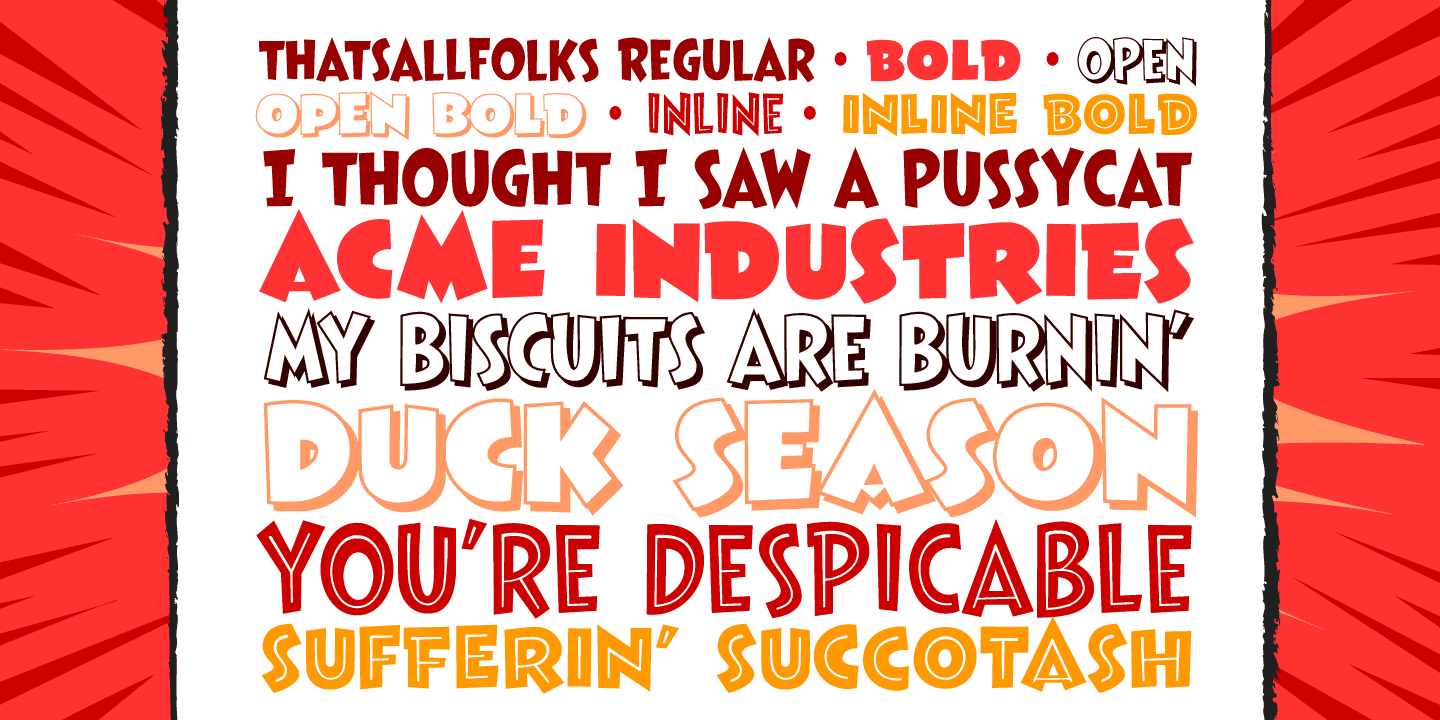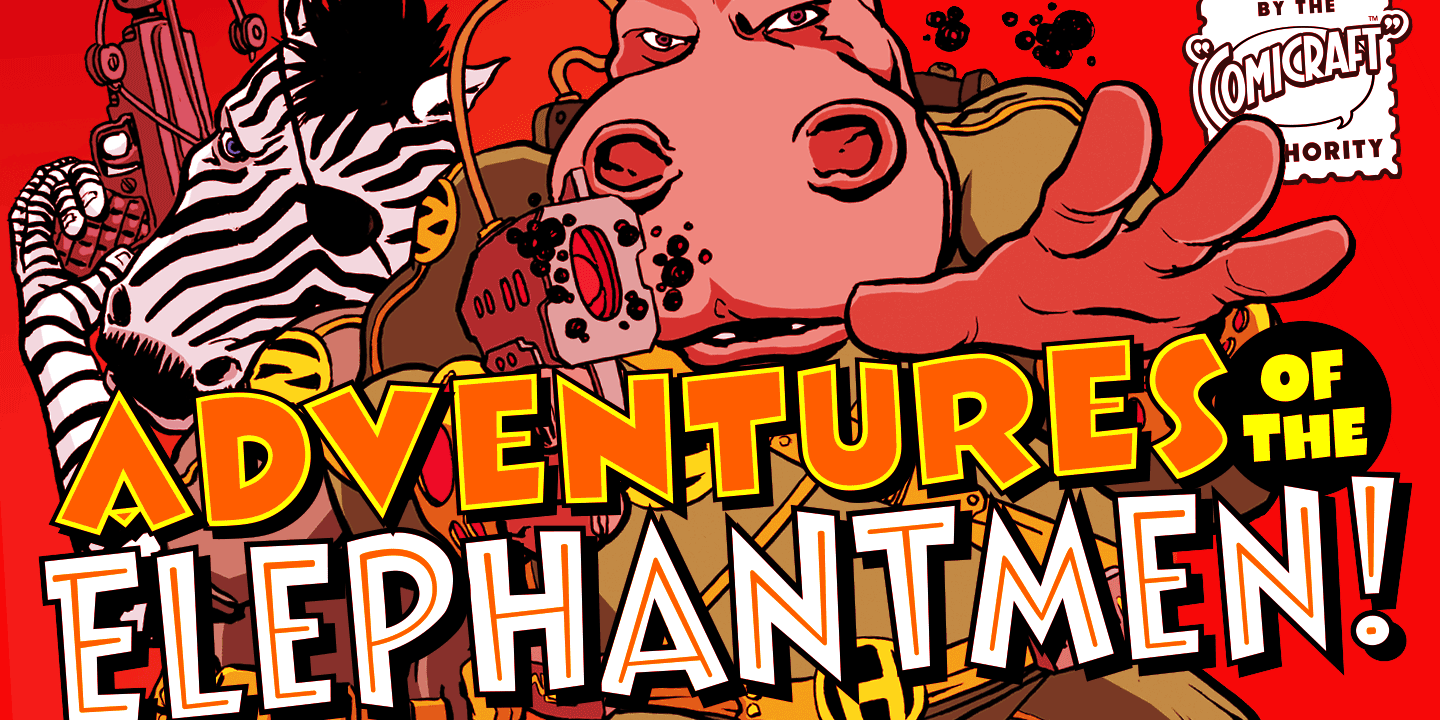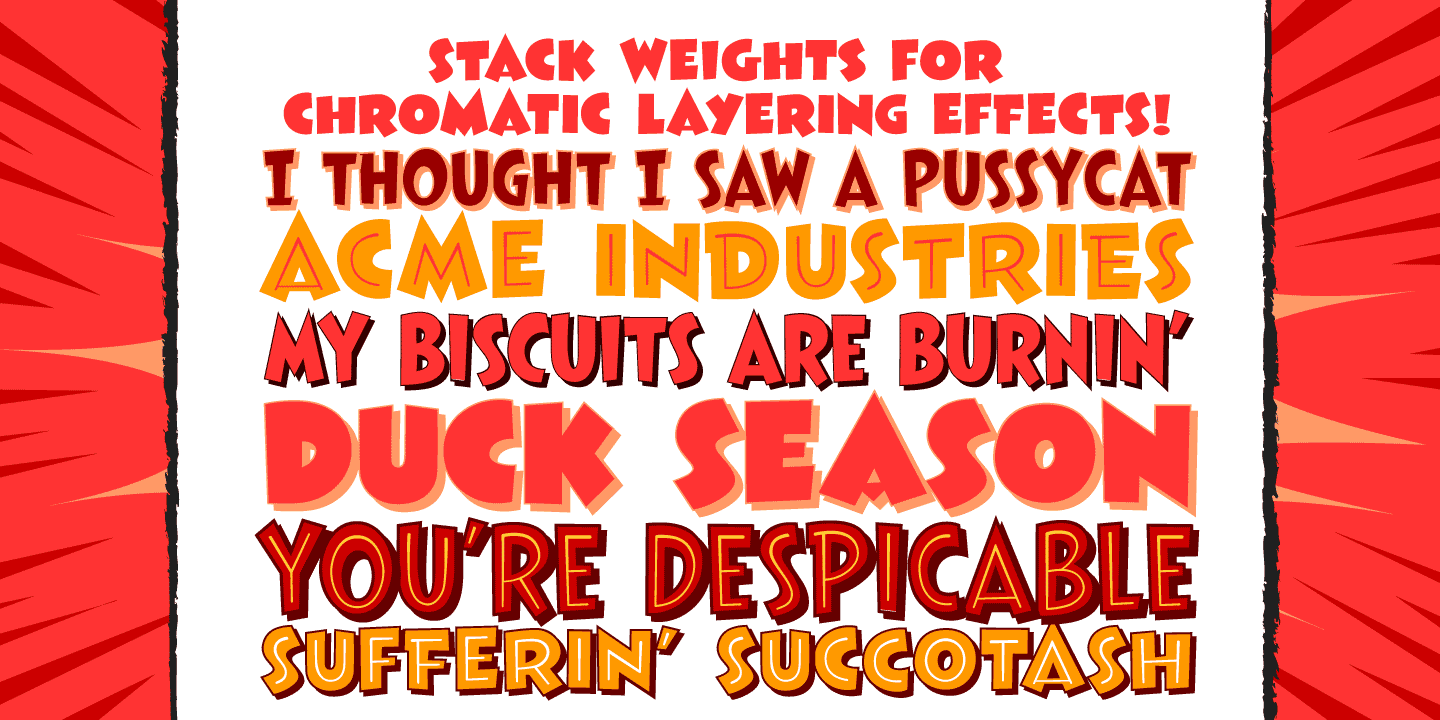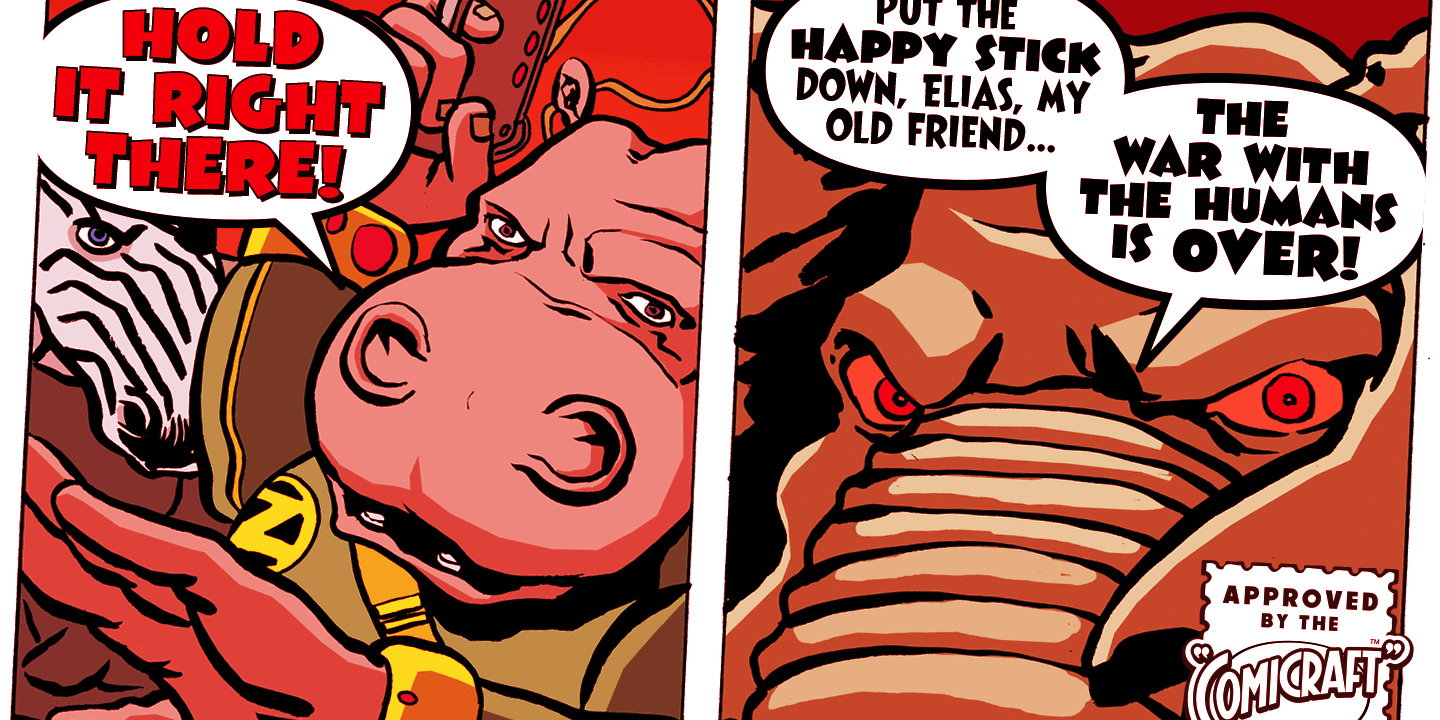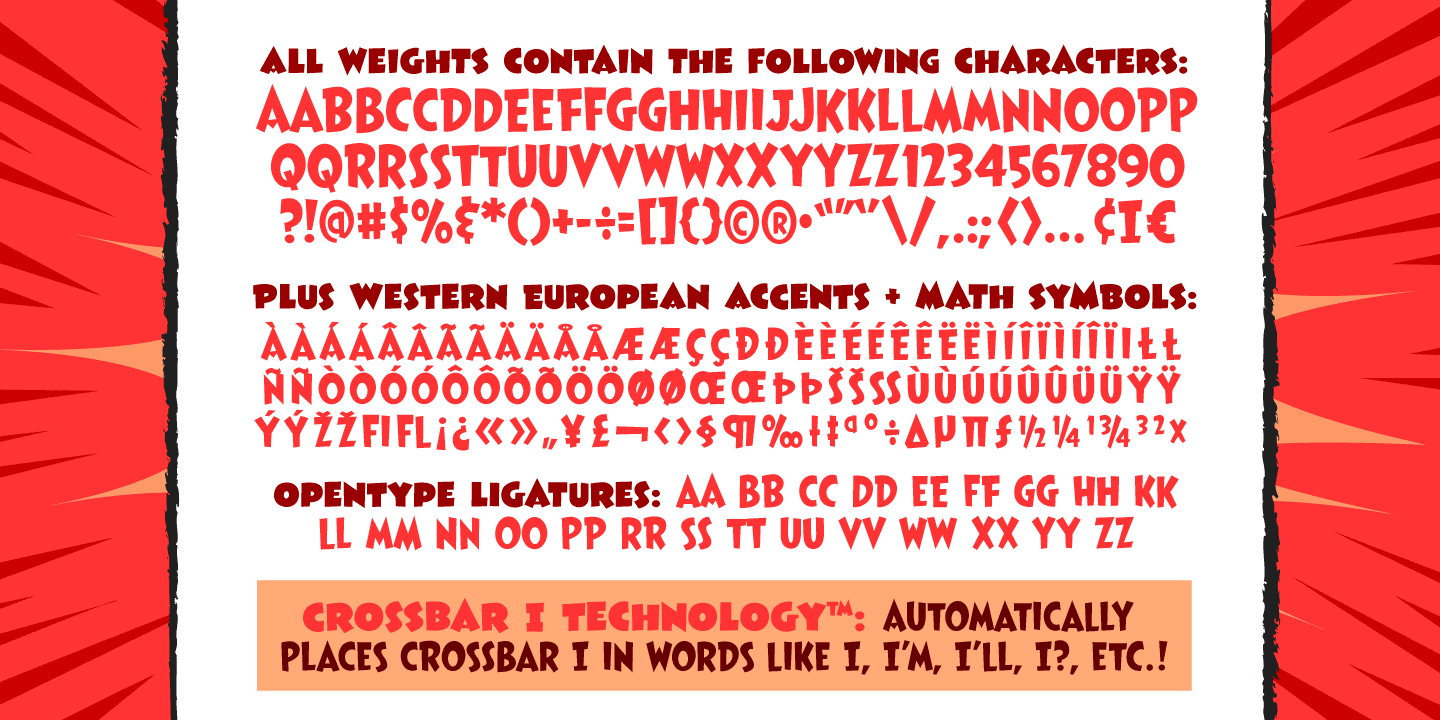
About the Thats All Folks Font
About That’s All Folks Font Family Run amuck and head on down to Toon Town with us to enjoy some Madcap Laffs with our latest Frolicking Font, ‘THAT’S ALL FOLKS’. It’s good, clean family fun for all your favorite comic cuts and looney’toons!
What’s more, it’s (sing along) S-O-E, A-S-Y, T-O-U-S-E! Includes new Inline Regular and Bold weights, Western European accents, and Crossbar I Technology! Designers: John RoshellPublisher: ComicraftFoundry: ComicraftDesign Owner: ComicraftMyFonts debut: Oct 26, 2005 That’s All Folks